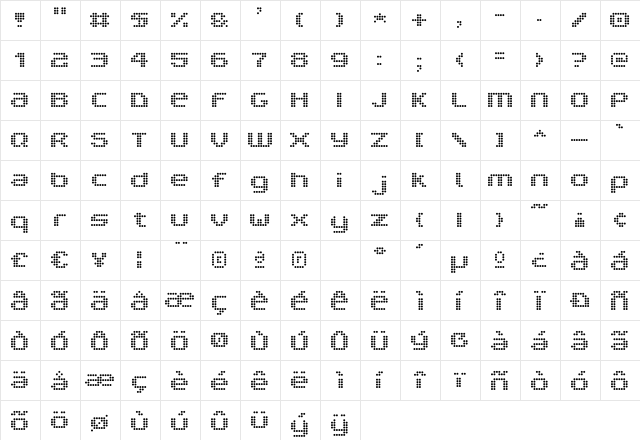
V5 Prophit Dot
| Style | Dot |
Design Context for V5 Prophit Typeface
V5 Prophit is rooted in pixel-grid construction, making it a natural fit for game UI, retro computing aesthetics, and digital nostalgia projects.
Well-suited to indie game interfaces, retro computing aesthetics, and pixel art-adjacent design work.
Pro Tip: Use V5 Prophit at sizes that align with its pixel grid for the sharpest rendering — scaling to non-integer multiples can introduce unwanted blur.